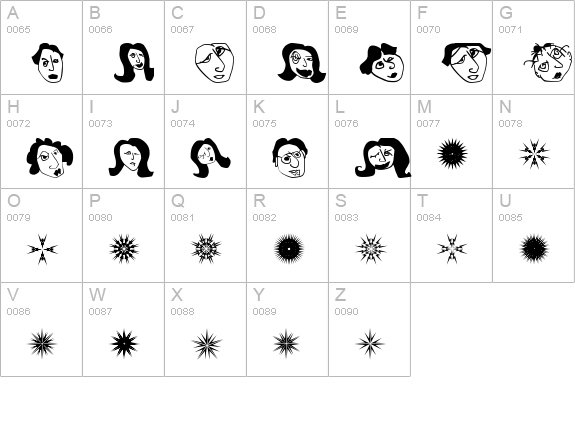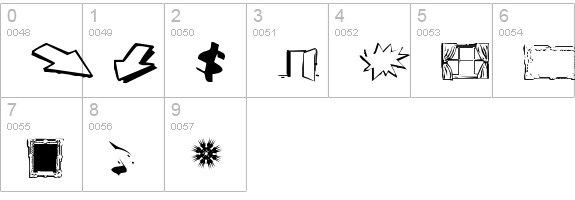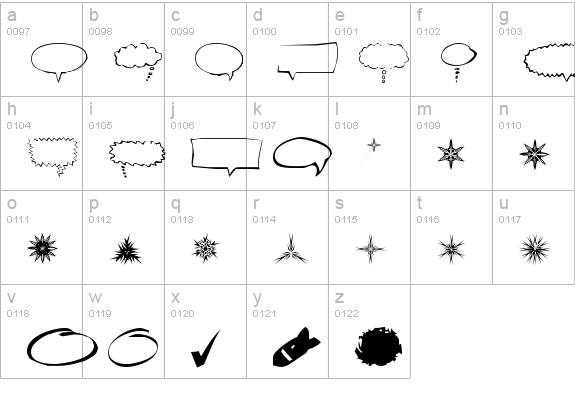
DingoBatz Font Details
DingoBatz font is a whimsical and playful typeface that is perfect for adding a touch of fun to your designs. With its unique combination of bold lines and quirky shapes, this font is sure to make your text stand out. Whether you're working on a poster, invitation, or logo, DingoBatz is the perfect choice to add a touch of personality to your project. Best of all, DingoBatz font is available for free download at FontsMarket.com. Simply visit the website to access this charming font and start using it in your designs today. Don't miss out on the opportunity to add a fun and creative twist to your projects with DingoBatz font!